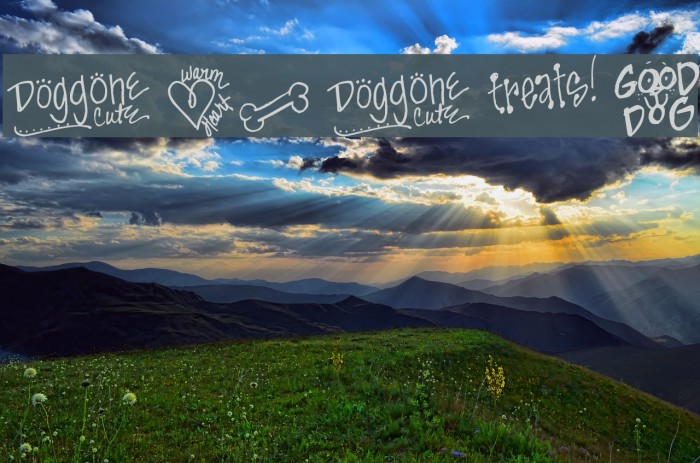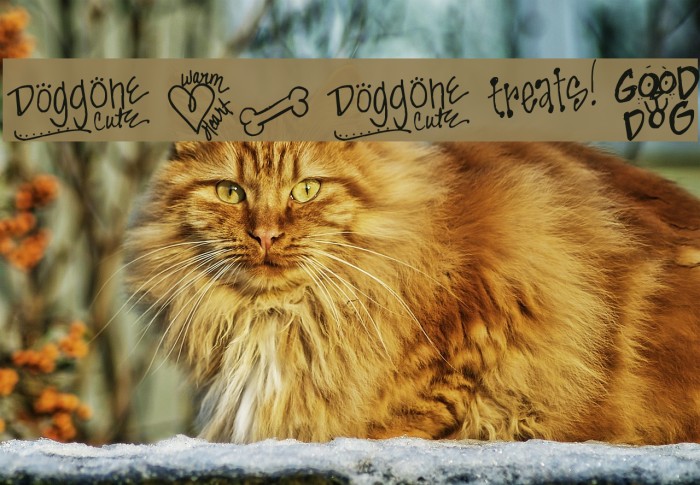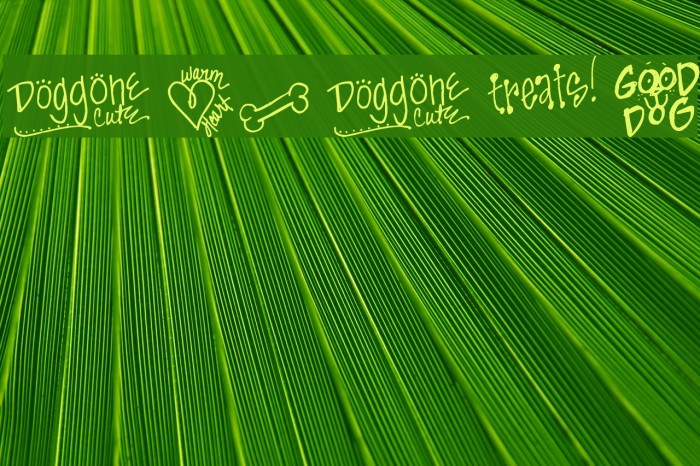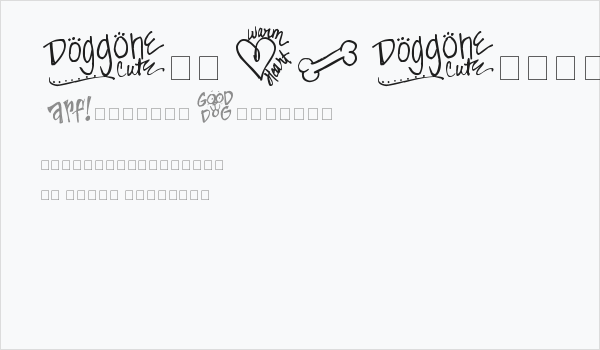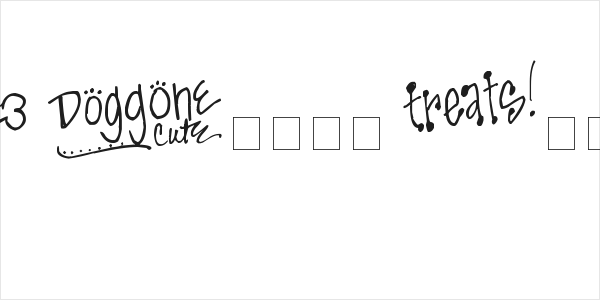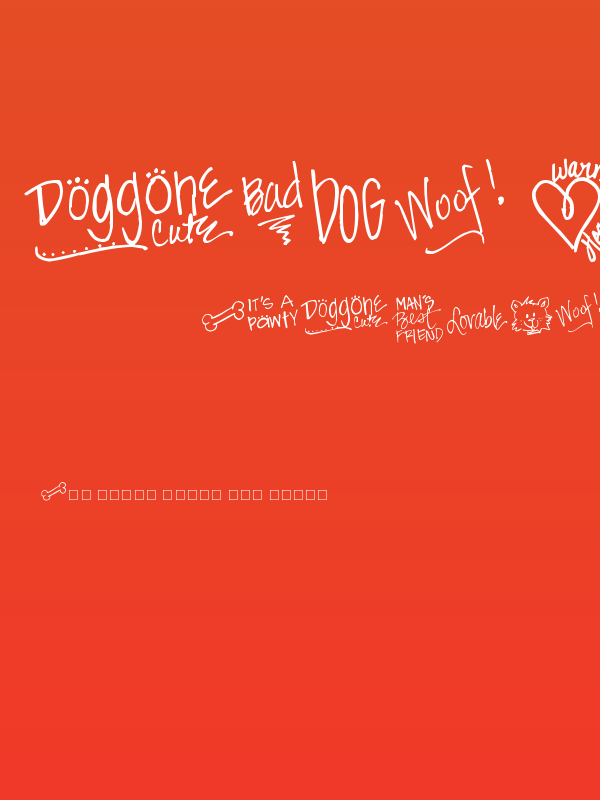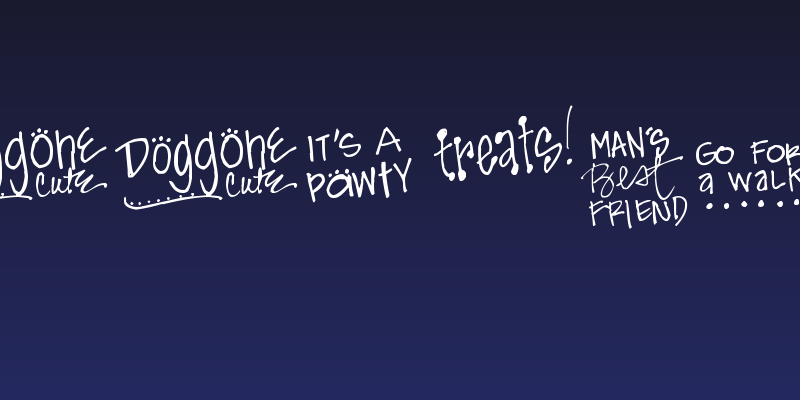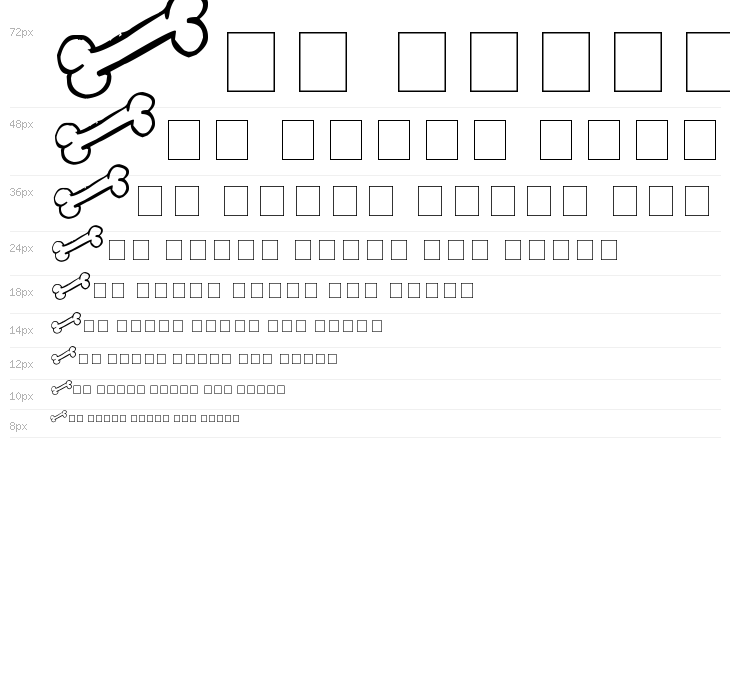
Pea KT Puppy Love Doodles Font
Pea KT Puppy Love Doodles Description
This playful and whimsical font is characterized by its hand-drawn doodle style, featuring a variety of dog-themed illustrations and words. The font includes charming sketches of bones, paw prints, and playful phrases that evoke a sense of fun and creativity. The letters are irregular and freeform, adding to the casual and friendly vibe. It's perfect for projects that require a touch of humor and personality, making it ideal for pet-related designs, children's materials, or any creative endeavor that benefits from a lighthearted and informal aesthetic.
| Overall Style | Whimsical and playful |
| Use Case | Logos, Greeting cards, Children's materials |
| Proposed Projects | Ideal for pet-related designs, children's books, greeting cards, and playful branding. |